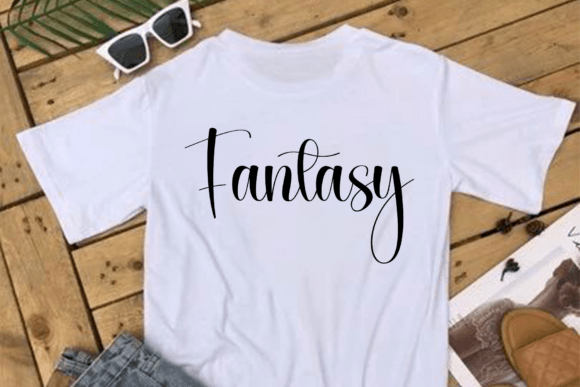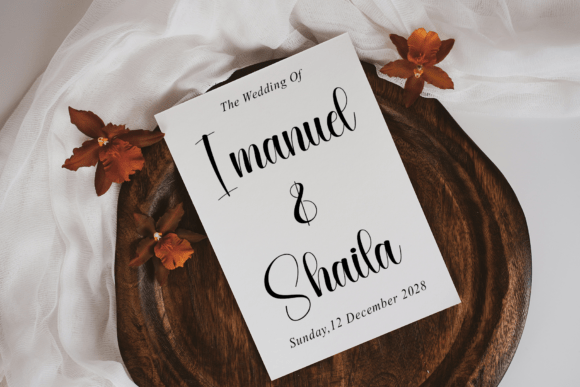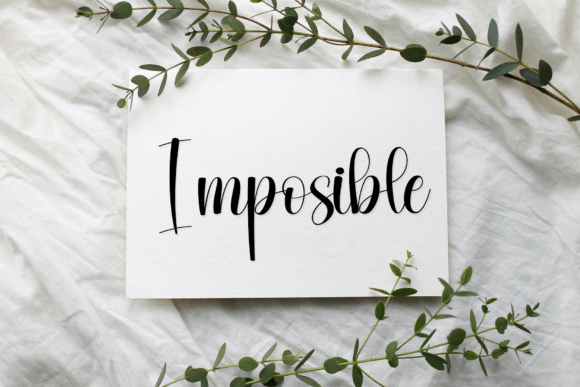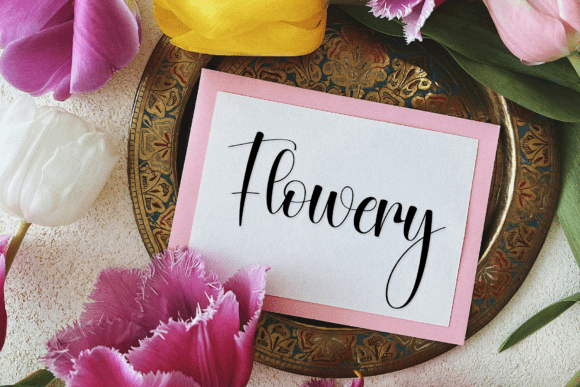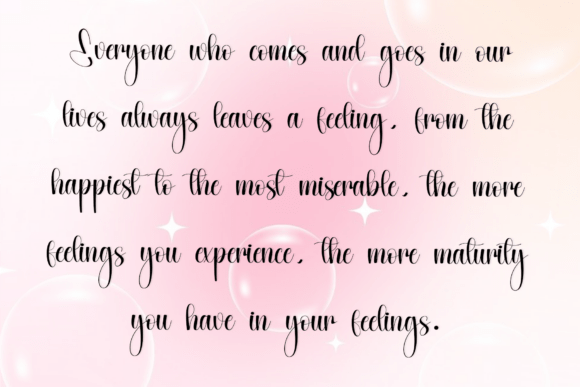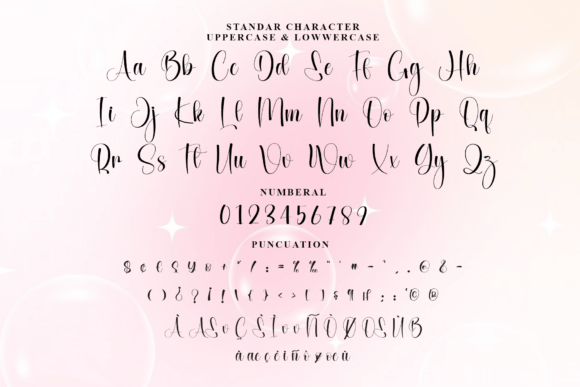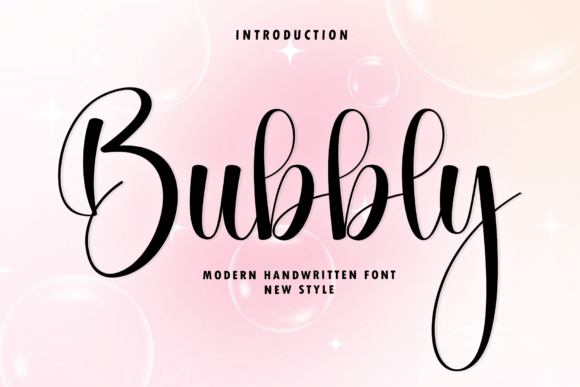
Bubbly Font: Elevate Your Designs with Elegance and Sophistication
In the world of typography, a well-crafted font can make all the difference in elevating your designs to the next level. Introducing Bubbly, an elegant and fluid handwritten script font that embodies the essence of modern sophistication. With its graceful, high-contrast strokes, sweeping loops, and fine, tapering terminals, Bubbly is the perfect choice for designers and crafters seeking to add a touch of luxury to their creations.
The Characteristics of Bubbly Font
Bubbly’s unique charm lies in its thoughtful design elements. The font features:
- Graceful, high-contrast strokes: Bubbly’s strokes are designed to mimic the fluidity of handwritten script, with varying thicknesses that create a sense of movement and elegance.
- Sweeping loops and fine, tapering terminals: The font’s loops and terminals are carefully crafted to provide a rhythmic and natural flow, giving Bubbly a distinctly handwritten feel.
- Expansive horizontal presence: Bubbly’s characters have a generous width, making it perfect for headlines, titles, and other display text.
- Delicate connections between characters: The font’s connections are designed to provide a seamless flow between letters, creating a sense of continuity and sophistication.
Perfect for Luxury Designs
Bubbly’s refined aesthetic makes it an ideal choice for luxury designs, including:
- Luxury wedding stationery: Add a touch of elegance to wedding invitations, save-the-dates, and other stationery with Bubbly’s sophisticated script.
- Intimate event branding: Create bespoke branding for exclusive events, such as anniversaries, baby showers, or birthday parties, with Bubbly’s refined typography.
- High-end editorial signatures: Elevate your editorial designs, such as magazine titles, article headings, or author signatures, with Bubbly’s luxurious feel.
- Sophisticated lifestyle photography overlays: Add a touch of refinement to your lifestyle photography with Bubbly’s elegant script, perfect for overlaying text on images.
Why Choose Bubbly Font?
With Bubbly, you can:
- Elevate your designs: Bubbly’s sophisticated aesthetic instantly elevates your designs, making them perfect for high-end clients or special occasions.
- Create a lasting impression: Bubbly’s unique charm and elegance ensure that your designs leave a lasting impression on your audience.
- Stand out from the crowd: With Bubbly, you can differentiate your designs from others, adding a touch of personality and sophistication to your work.
Tips for Using Bubbly Font
To get the most out of Bubbly, consider the following tips:
- Use it sparingly: Bubbly’s elegance can be overwhelming if overused. Use it sparingly to create a sense of luxury and sophistication.
- Pair it with complementary fonts: Combine Bubbly with complementary fonts to create visual interest and add depth to your designs.
- Experiment with colors and textures: Bubbly’s versatility allows you to experiment with various colors and textures, adding an extra layer of creativity to your designs.
Bubbly font is a masterpiece of modern typography, offering a unique blend of elegance, sophistication, and refinement. With its thoughtful design elements, expansive horizontal presence, and delicate connections between characters, Bubbly is the perfect choice for designers and crafters seeking to elevate their designs. Whether you’re creating luxury wedding stationery, intimate event branding, or high-end editorial signatures, Bubbly is sure to make a lasting impression.